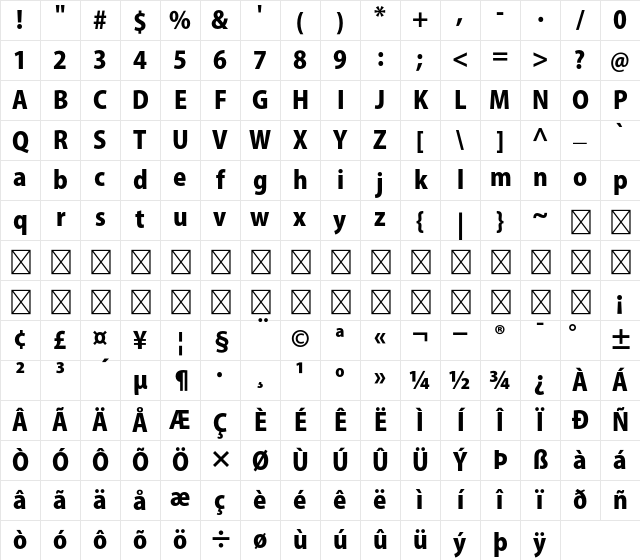
Complete Ryo Gothic PlusN UH glyph index. Displaying only characters natively supported by Ryo Gothic PlusN UH font.
Ryo Gothic PlusN takes a clean, functional approach - its unadorned letterforms prioritise legibility and work reliably across screen and print environments.
Font Pairing: Works well alongside a characterful serif or display font that can carry the expressive load while Ryo Gothic PlusN handles the functional copy.
Pro Tip: Use Ryo Gothic PlusN for UI labels, navigation, and short-form body copy where clean legibility is the priority.